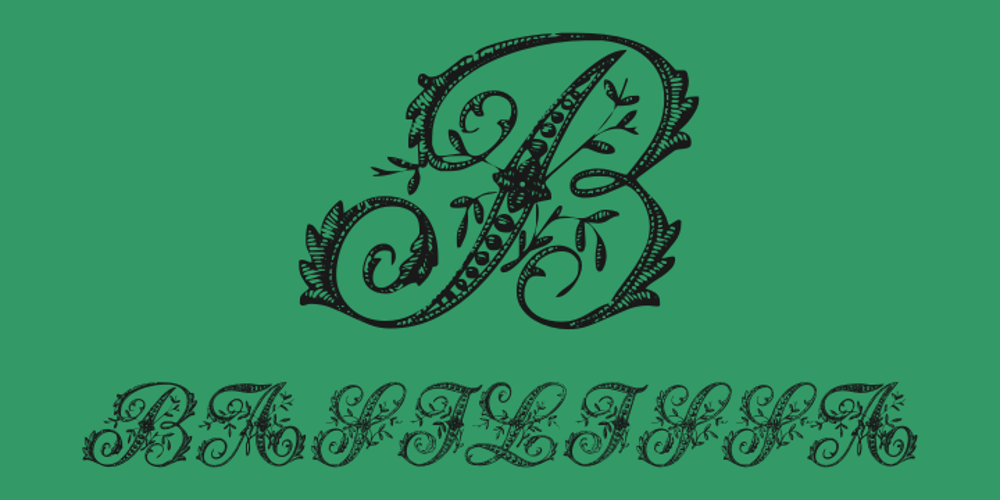
Basilissa
Basilissa font
Basilissa Font Family was designed by Iza W and published by Intellecta Design. Basilissa contains 2 styles and family package options. A exotical flourished font